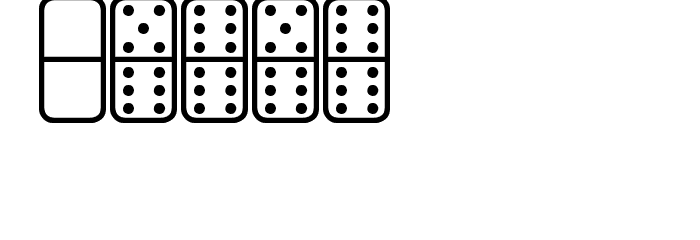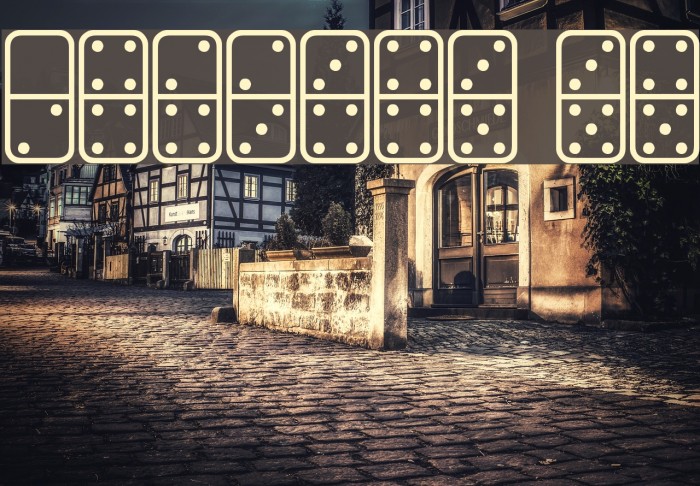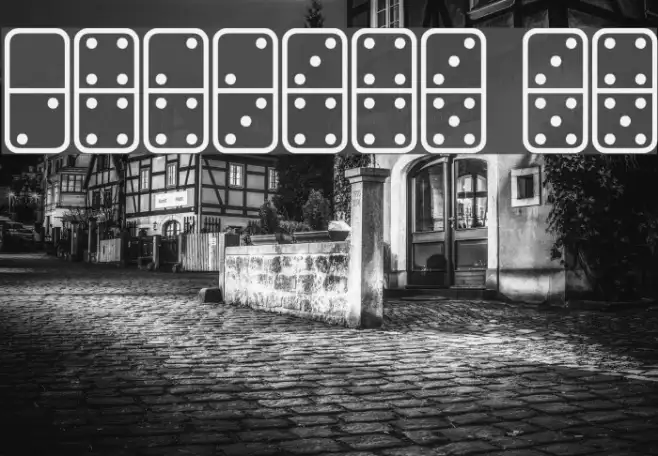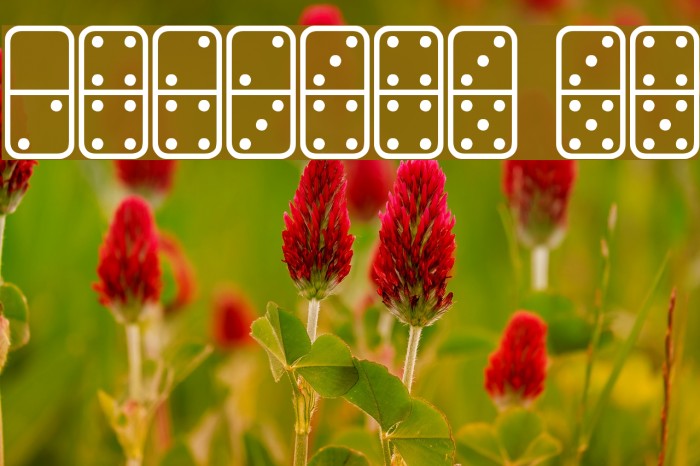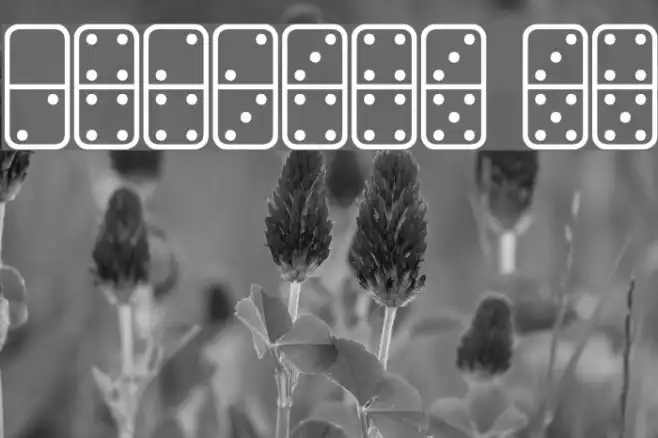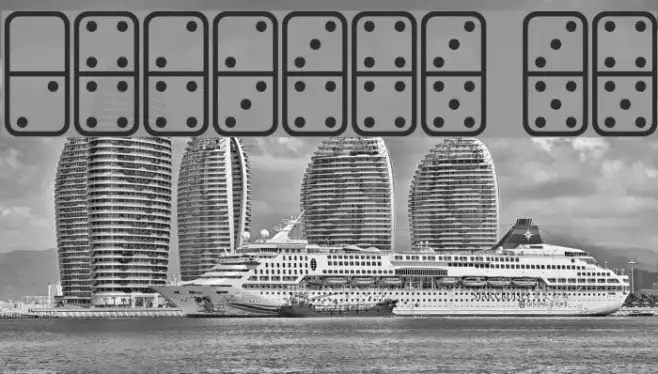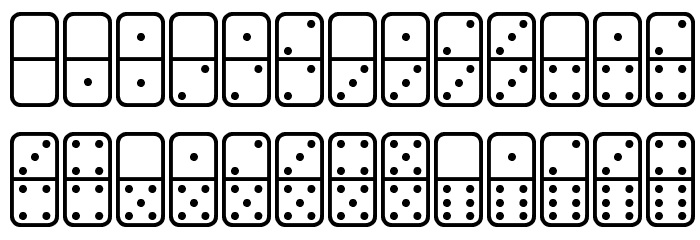
Dominos St Font
Dominos St Description
A playful, decorative font where each character is represented by a domino tile, using dots to indicate values. The glyphs are outlined with rounded rectangles and filled with dot patterns, mimicking real domino pieces.
| Overall Style | Playful, Decorative, Game-inspired |
| Use Case | Logos, Headlines, Themed graphics, Posters |
| Proposed Projects | Board game designs, playful posters, educational materials, themed invitations. |